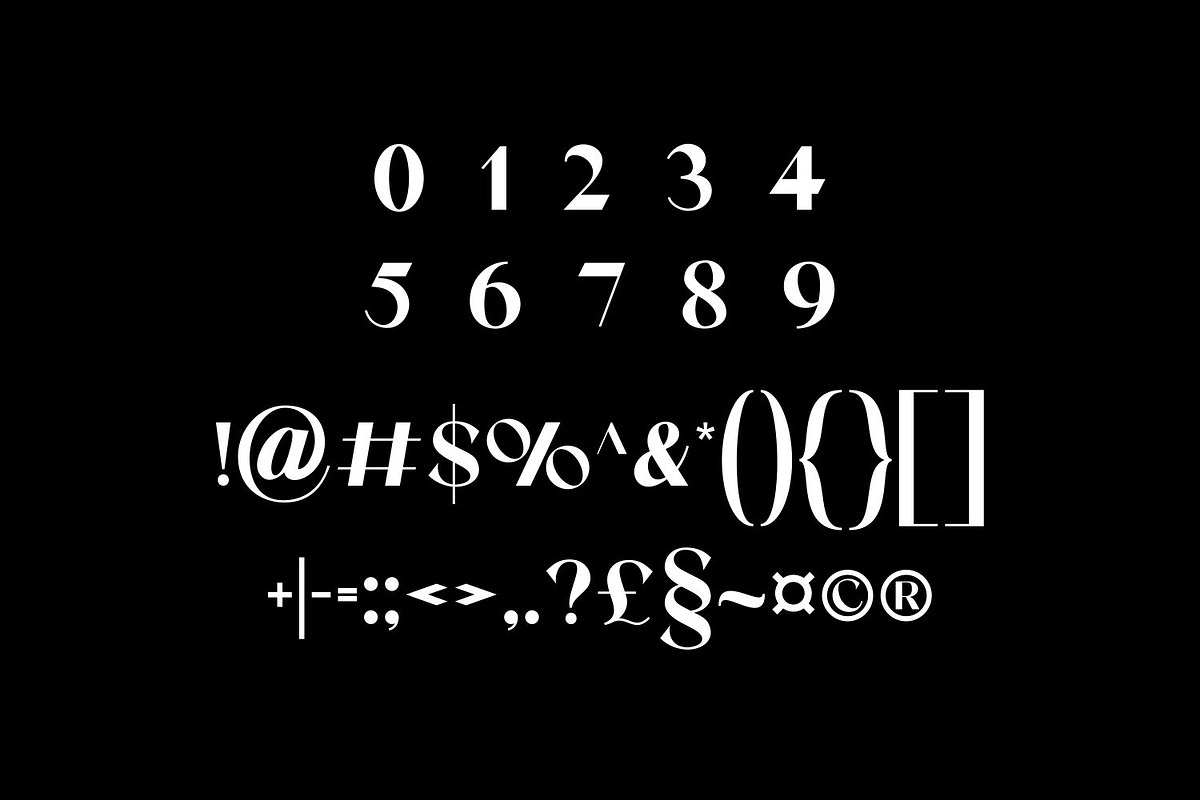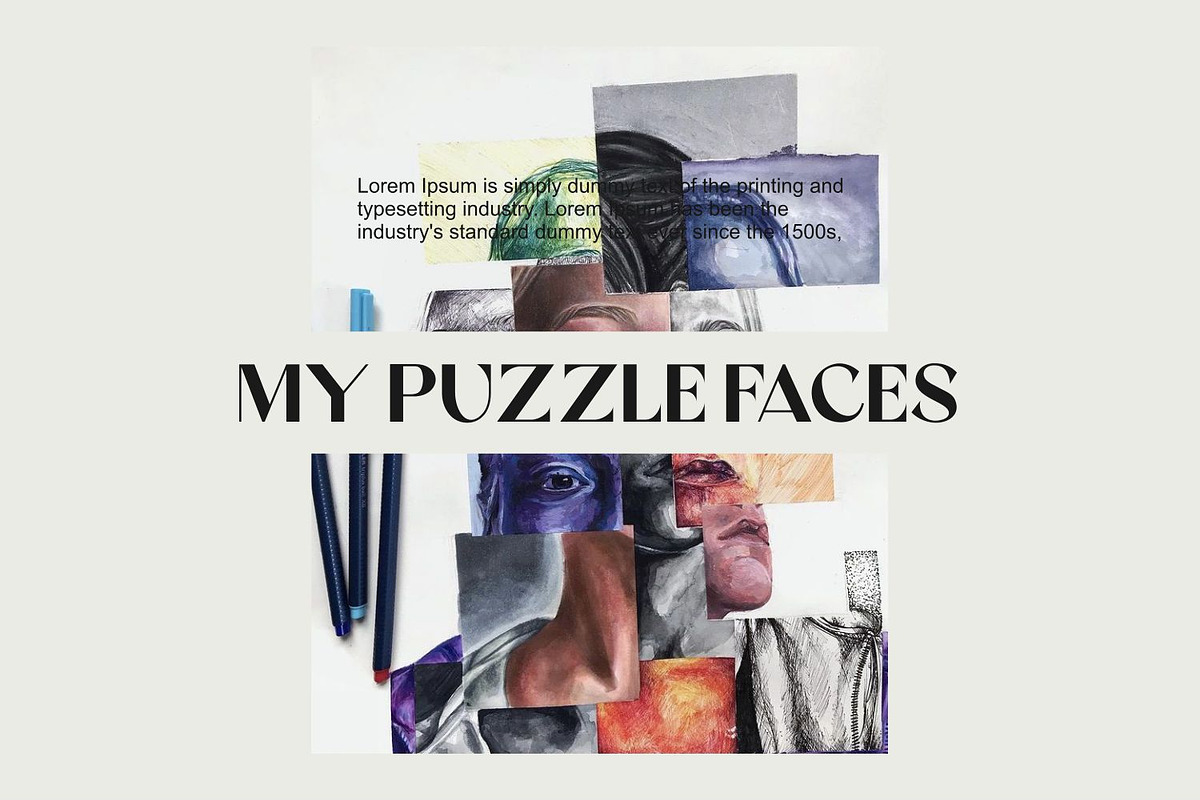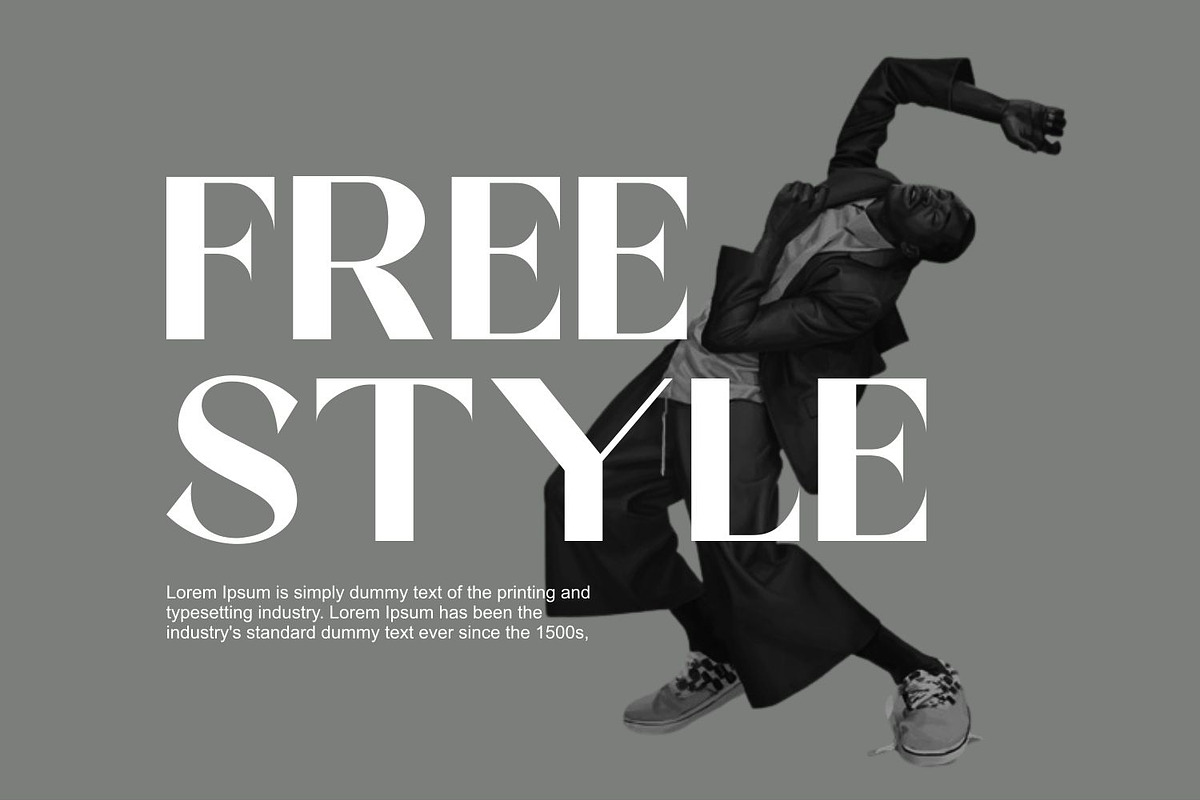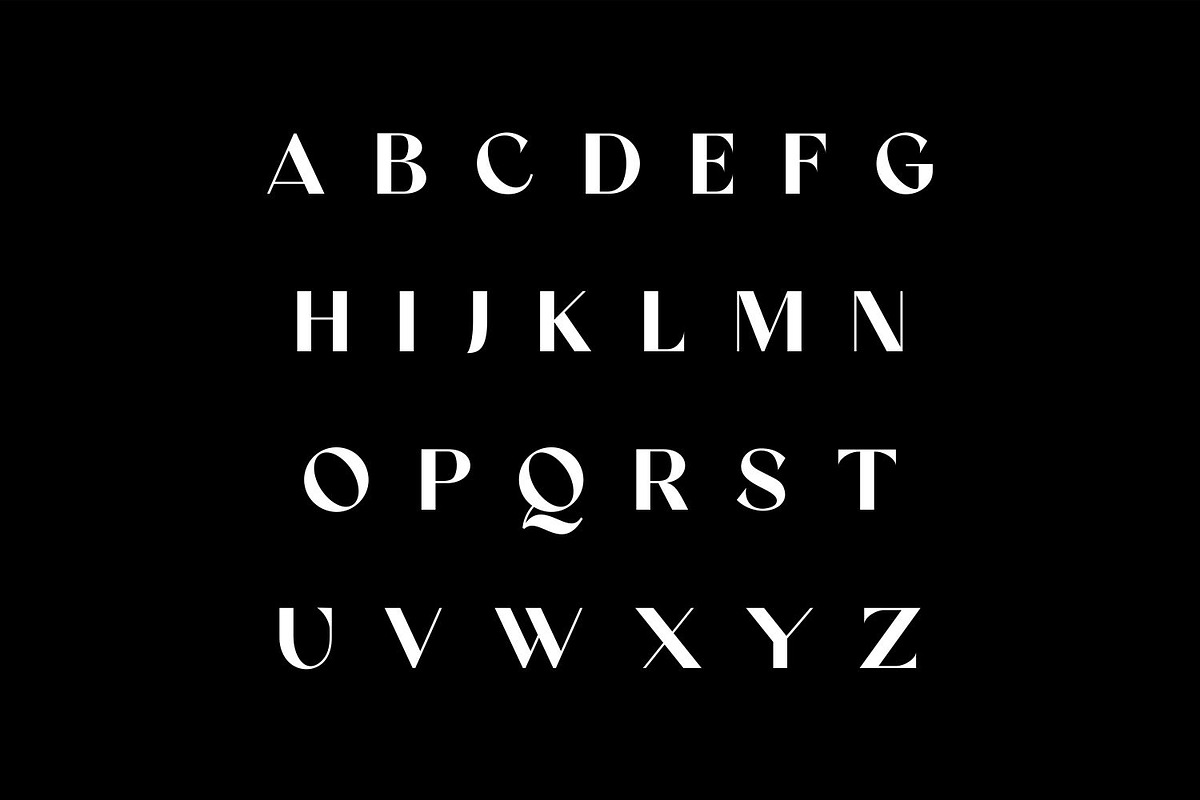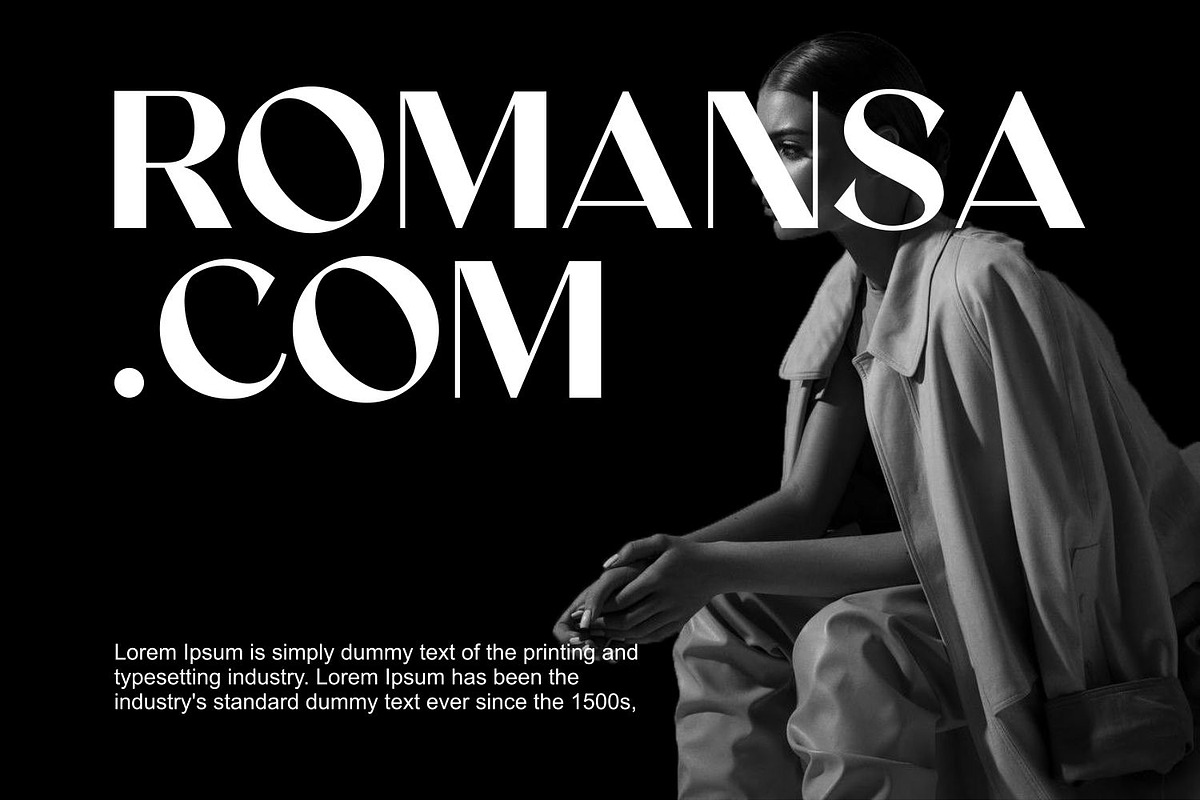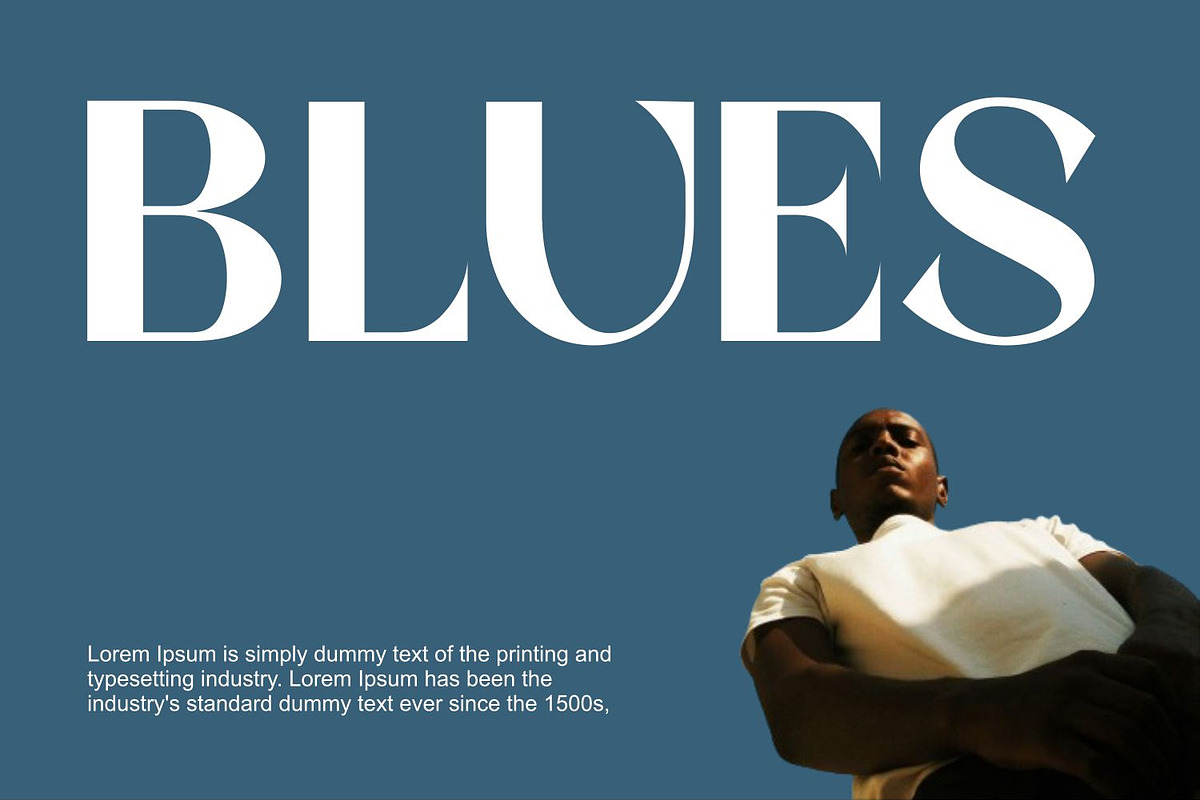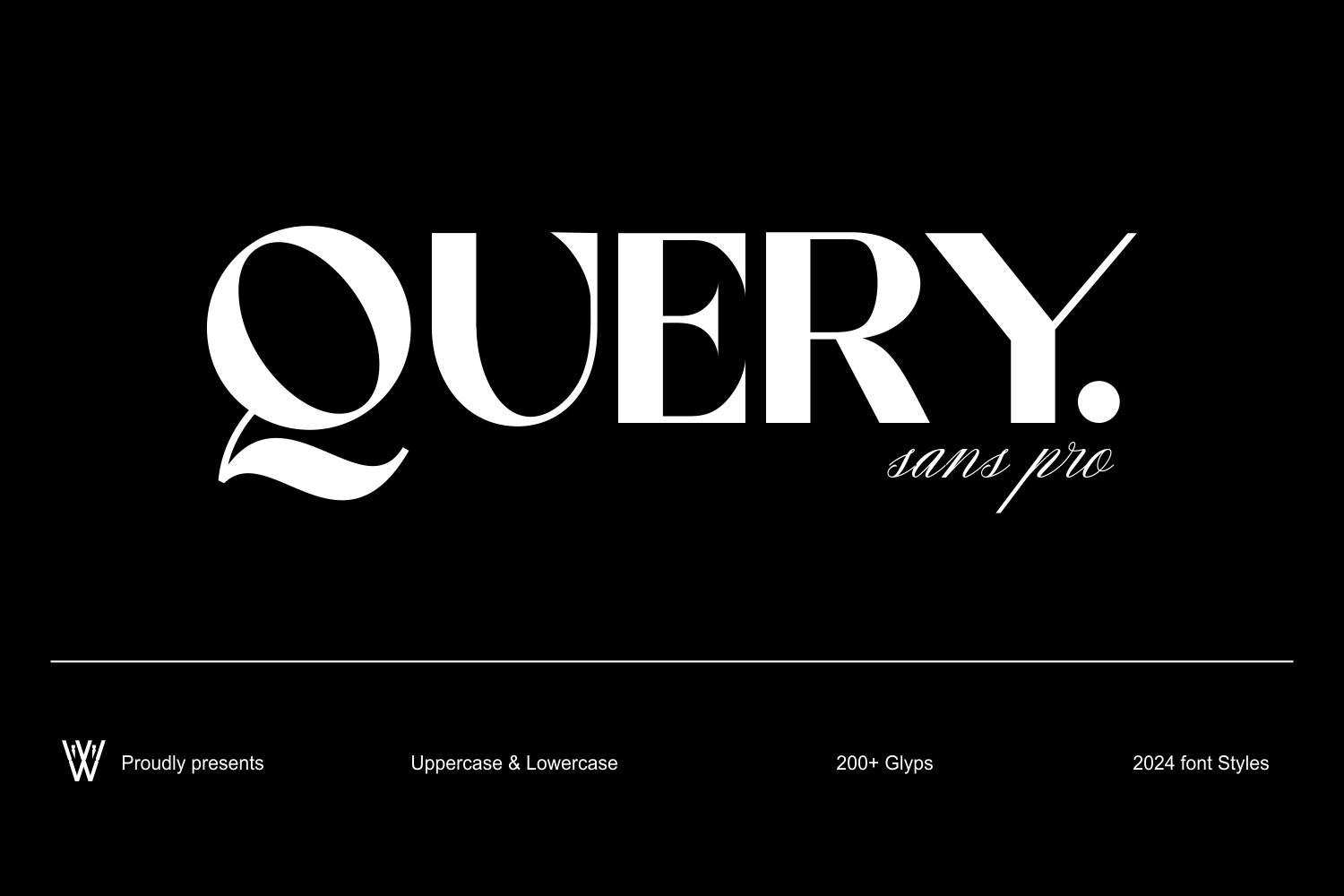
QUERY Display Bold Serif Font
Enhance Your Designs with Querly: The Sophisticated and Versatile Font Family
Elevate your design projects with Querly, a font family that seamlessly combines elegance and functionality. With a complete set of uppercase and lowercase characters and over 200 unique glyphs, Querly offers endless creative possibilities. Featuring 2024 distinctive font styles, this versatile typeface is ideal for crafting stunning headers, memorable logos, and refined typography.